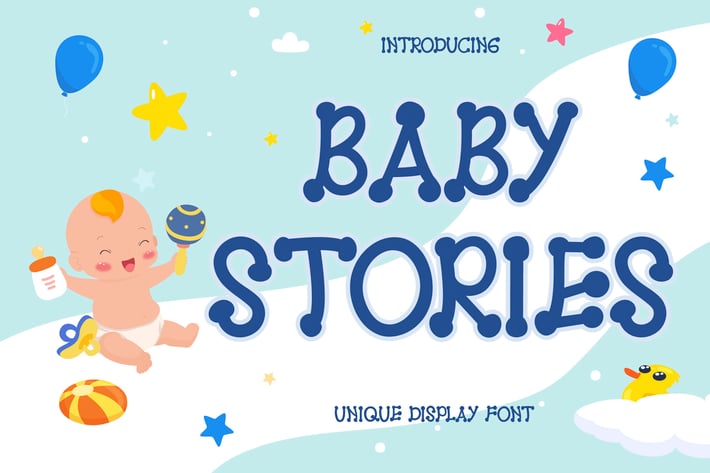
BABY STORIES Display Font
BABY STORIES is a handicraft font. Dicky Dance can be used for products such as handcraft, product packaging, quotes, product design, craftsmen, labels, photography, watermarks, logos & branding. Everything can be accessed using software that supports Opentype, such as Adobe Indesign, Adobe CS Illustrator, Adobe Photoshop CC, and Corel Draw.